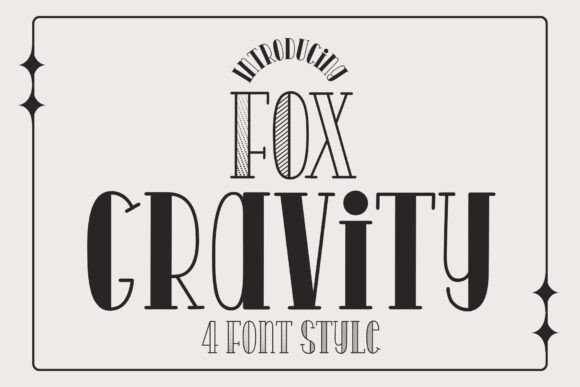
Unlock the Power of Vintage Elegance with the Fox Gravity Font
Do you remember that moment when you stumbled upon an old vintage poster in a thrift store, and its quirky charm instantly sparked your creativity? It’s moments like these that remind us of the timeless beauty of classic typography. If you’re a designer looking to infuse your projects with a similar sense of nostalgia and sophistication, look no further than the Fox Gravity Font.
This versatile display font is designed to evoke the elegance and boldness of vintage typography, while still feeling modern and relevant. With four unique styles to choose from – Regular, Outline, Spot, and Strokes – you can add a touch of artistic flair to your branding, posters, packaging, and editorial designs. Whether you’re working in print or digital media, the Fox Gravity Font is sure to elevate your design and make a bold statement.
Fox Gravity Font Key Features
- Font Family: Fox Gravity is a sans-serif font family with a modern and edgy design.
- Unique Characteristics: Fox Gravity features a unique blend of geometric and organic shapes, with a distinctive x-height and a wide range of weights and styles.
- Weight and Style Options: Fox Gravity is available in 8 weights, including Light, Thin, Regular, Medium, Demi, SemiBold, Bold, and Black, as well as 2 italic styles.
Designer Review: Fox Gravity Font
When I first laid eyes on Fox Gravity Font, I was struck by its sleek and modern aesthetic ✨. The font’s unique combination of rounded and angular elements creates a sense of dynamism and energy, making it perfect for projects that require a bold and adventurous vibe. I appreciate how the font’s weight and spacing can be adjusted to suit a variety of design styles, from clean and minimalist to bold and expressive.
One of the standout features of Fox Gravity Font is its versatility ✨. It works well in both digital and print applications, and its large character set ensures that it’s compatible with a wide range of languages. I’ve also found it to be highly legible, even at small font sizes, which is essential for projects that require a high level of readability.
- ⚠️ The font may not be suitable for projects that require a more formal or traditional look, as its bold and playful design may come across as too casual.
- ⚠️ Some users may find the font’s irregularities and quirks to be distracting or difficult to read, especially in situations where clarity is paramount.
Overall, I think Fox Gravity Font is a solid choice for designers who want to add a touch of modernity and excitement to their projects. While it may not be the best fit for every project, it’s a versatile and highly legible font that’s sure to please.
Tips for Getting the Most Out of Fox Gravity Font
Here are a few tips for getting the most out of Fox Gravity Font:
- Use Fox Gravity Font for headings and titles to add a touch of sophistication.
- Combine Fox Gravity Font with other fonts for a unique and creative look.
- Experiment with different font sizes and colors to find the perfect balance.
Here are a few common use cases for Fox Gravity Font:
- Business cards and resumes
- Marketing materials and advertisements
- Graphic design and